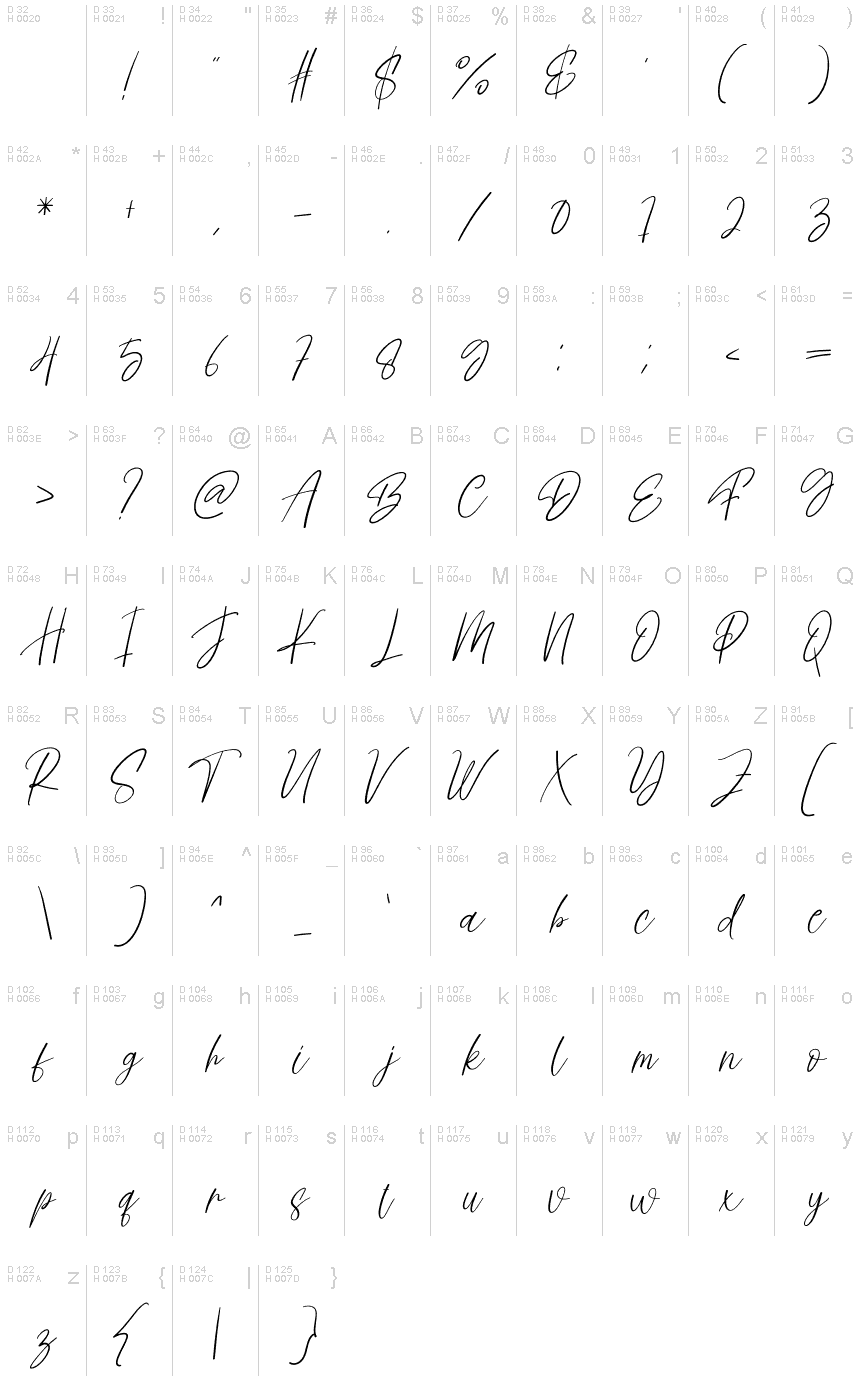
Doctor Signature
Doctor Signature is a stunning handwritten signature font, designed by scratchones. With its light weight and semi-condensed width, this font is perfect for various projects that require a sophisticated touch. From wedding invitations to logos, Doctor Signature will add that extra flair to your design. Its elegant curves and smooth lines create a timeless feel, making it suitable for both modern and classic designs. Use this font to create a personalized touch on your website or social media graphics. Make an impact with Doctor Signature - the perfect choice for those who want to stand out from the crowd!
the latest style letters are perfect for wall displays, wedding invitations, social media post logos, advertisements, product packaging, product designs, labels, photography, watermarks, invitations, stationery, and any project that requires taste handwriting.